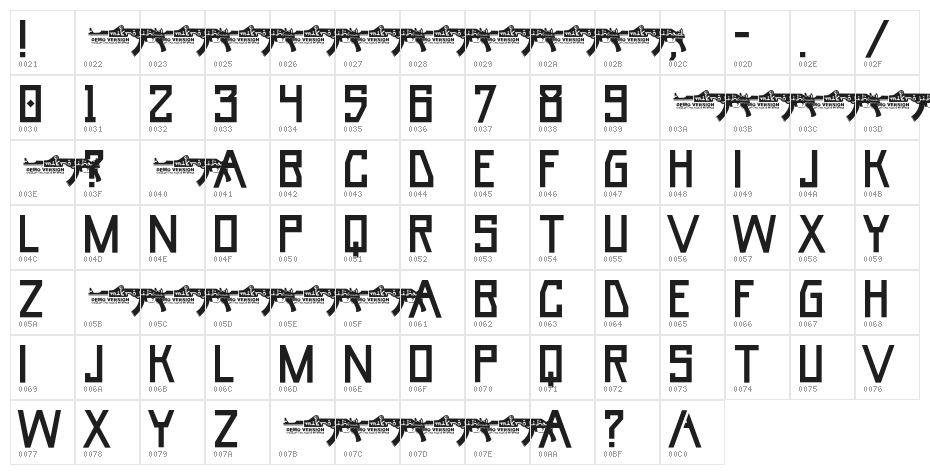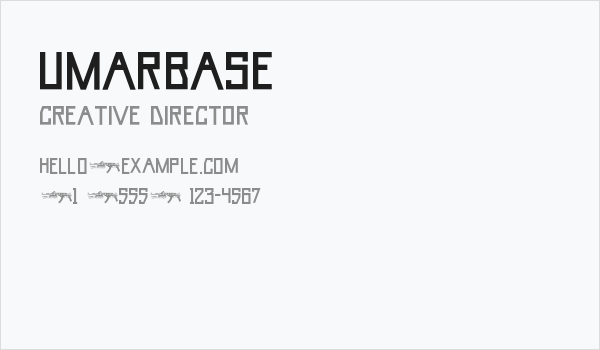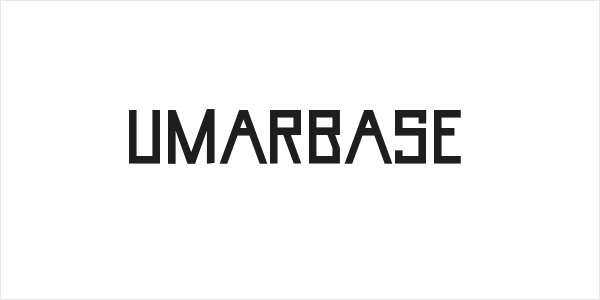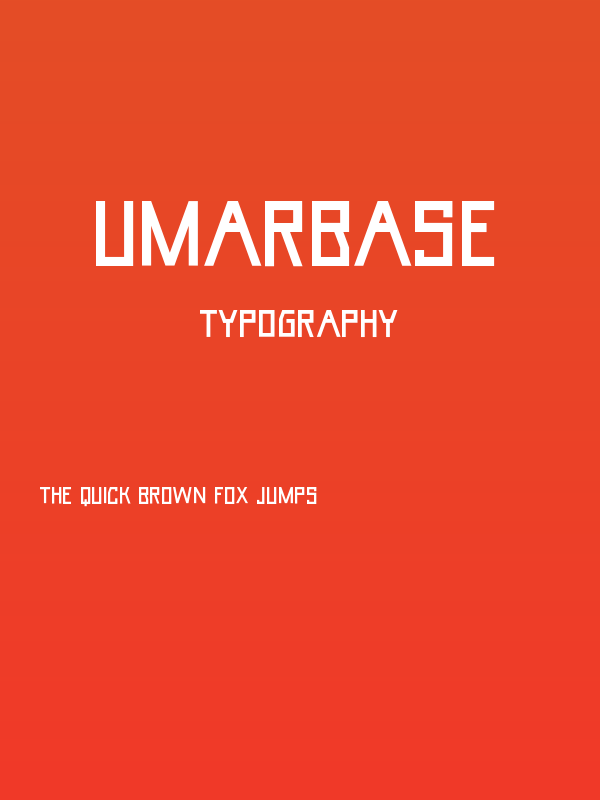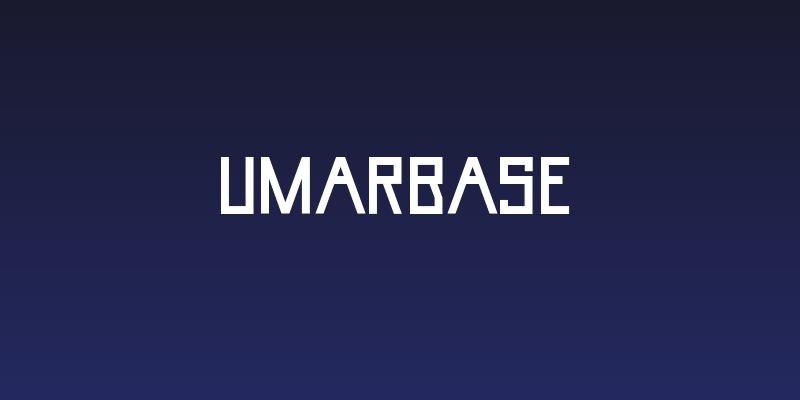
UmarBase Font
UmarBase Description
This font features a bold, geometric design with sharp angles and a modern aesthetic. The uppercase letters are distinct with a futuristic feel, characterized by straight lines and angular cuts. The numbers follow the same design principles, ensuring consistency across the typeface. Special characters are included, maintaining the same stylistic approach. The font's boldness and unique style make it stand out, ideal for projects that require a strong visual impact. Its geometric nature gives it a technical and contemporary look, suitable for modern branding and design projects.
| Proposed Projects | Ideal for branding, posters, video game graphics, and futuristic design projects. |